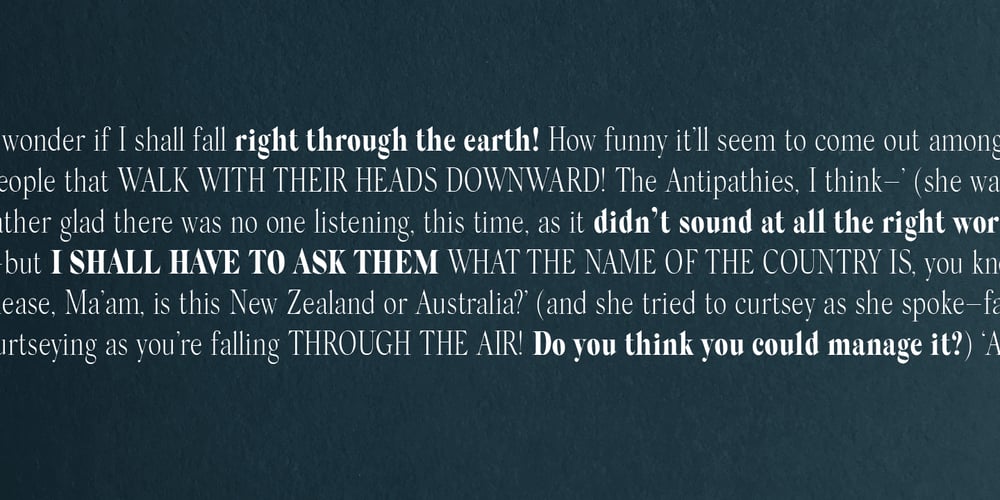
Silk Serif Condensed Font Family was designed by Rakel Tómasdóttir and published by SilkType. Silk Serif Condensed contains 6 styles and family package options. Silk Serif Condensed is the condensed version of Silk Serif, a high-contrast typeface with thin, pointy, heavily bracketed serifs, and ball terminals in the appropriate places, as well as bracketed junctions in various letterforms. The main feature of the typeface is the disconnection between the bowls and the stems. However, the bowl is very close to the stem, creating the illusion of connection.